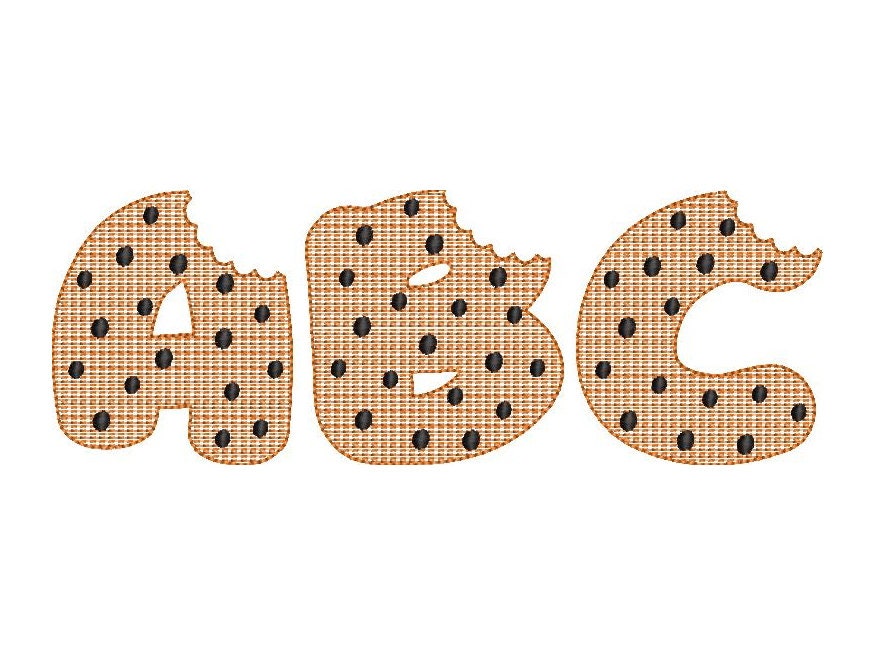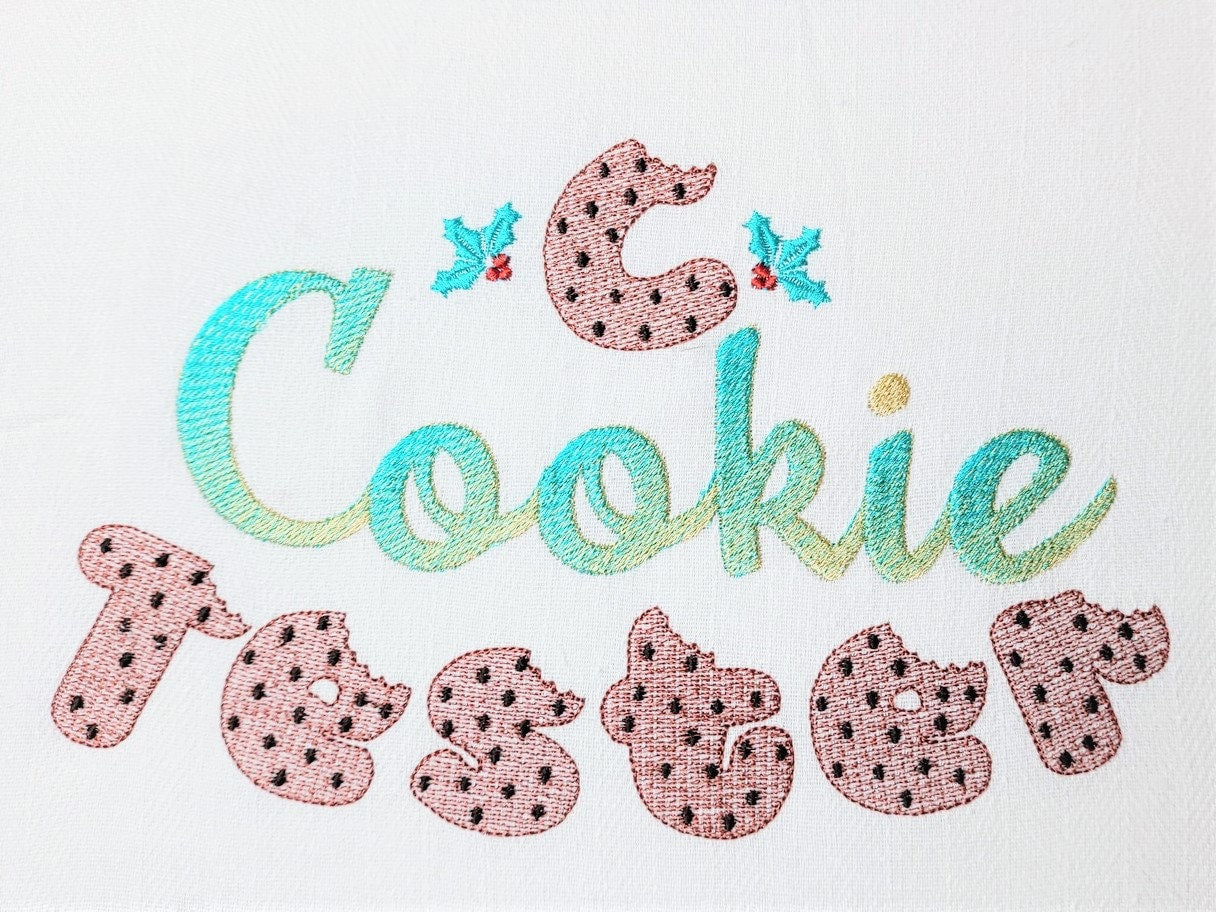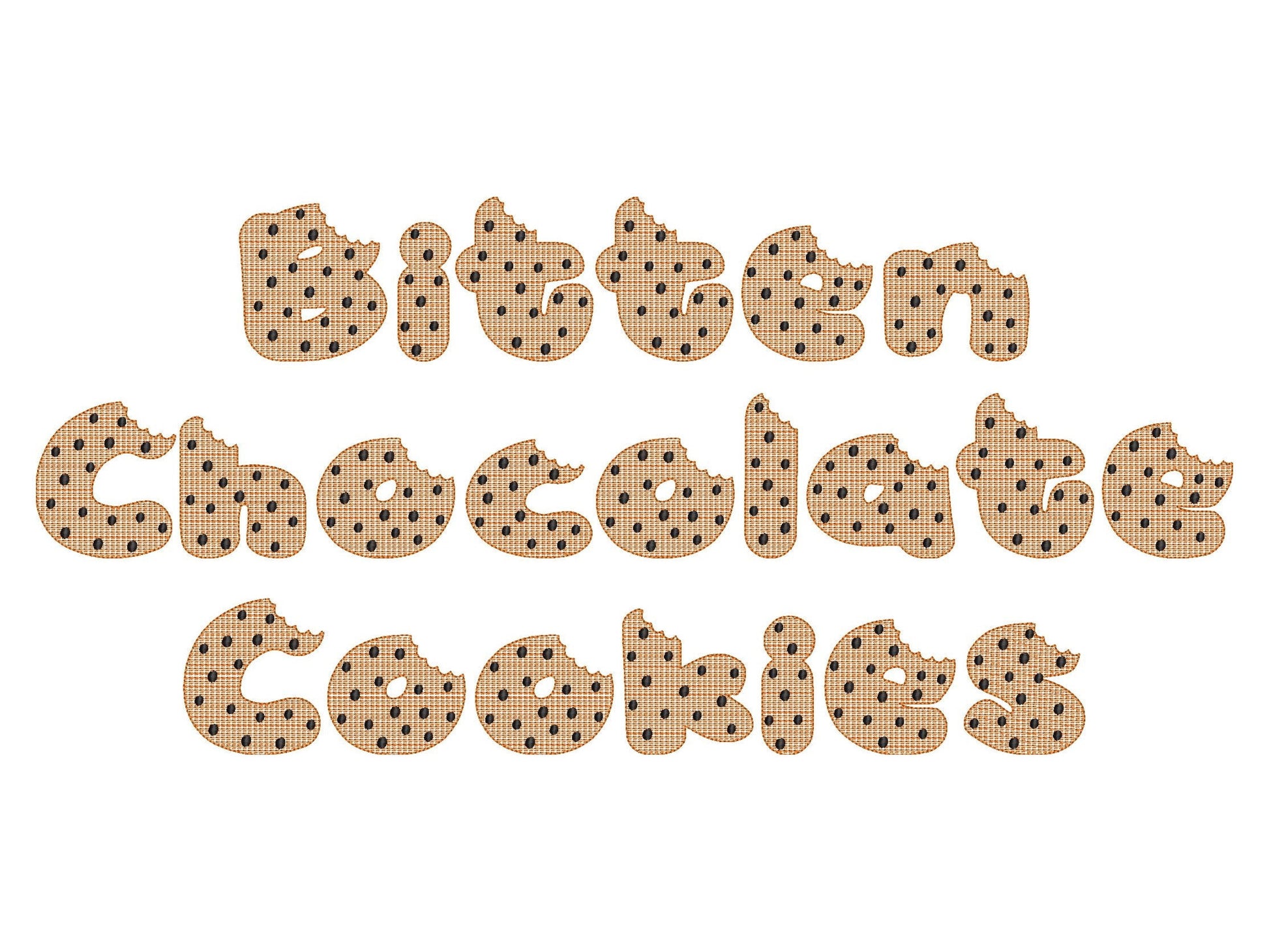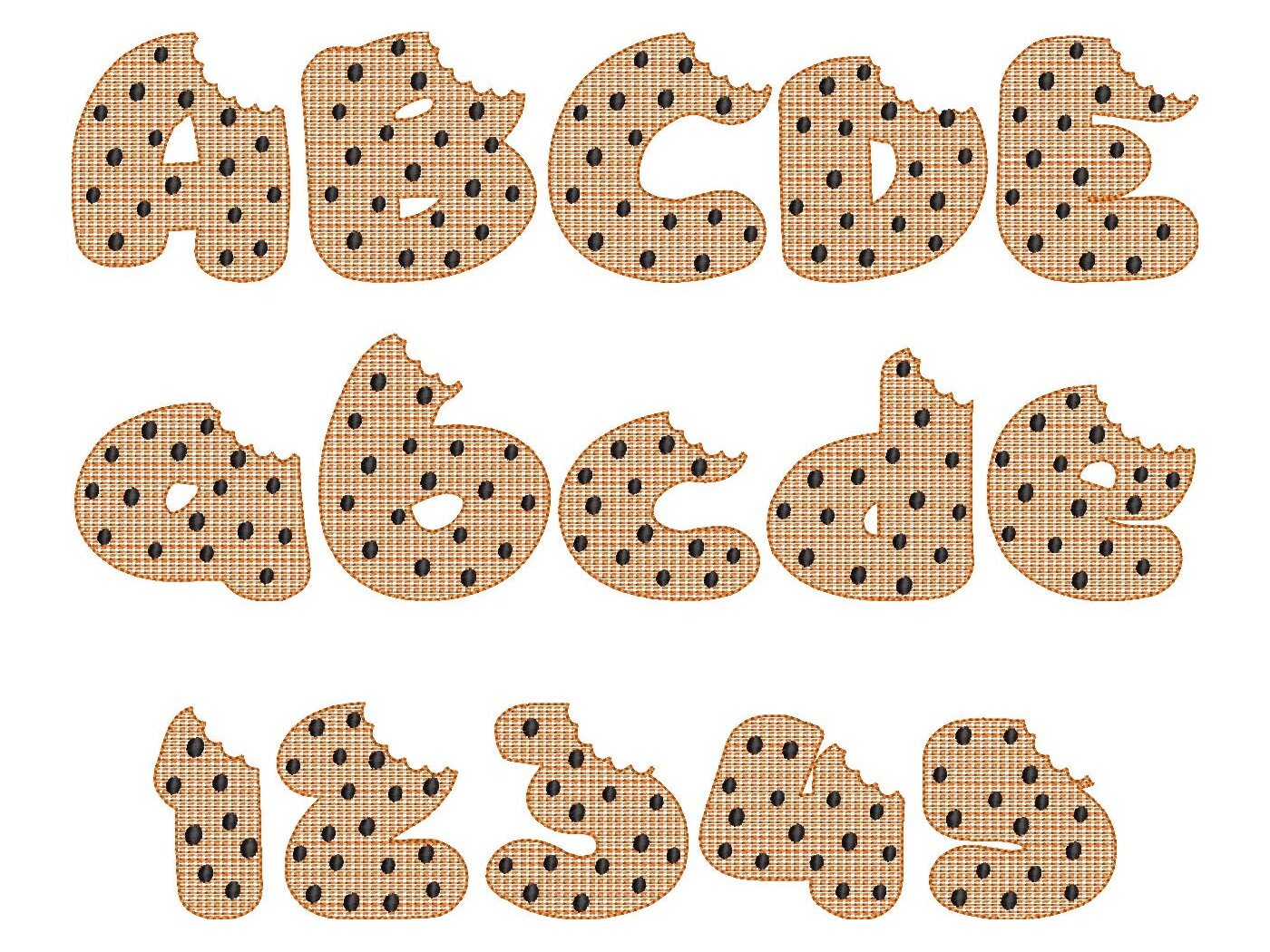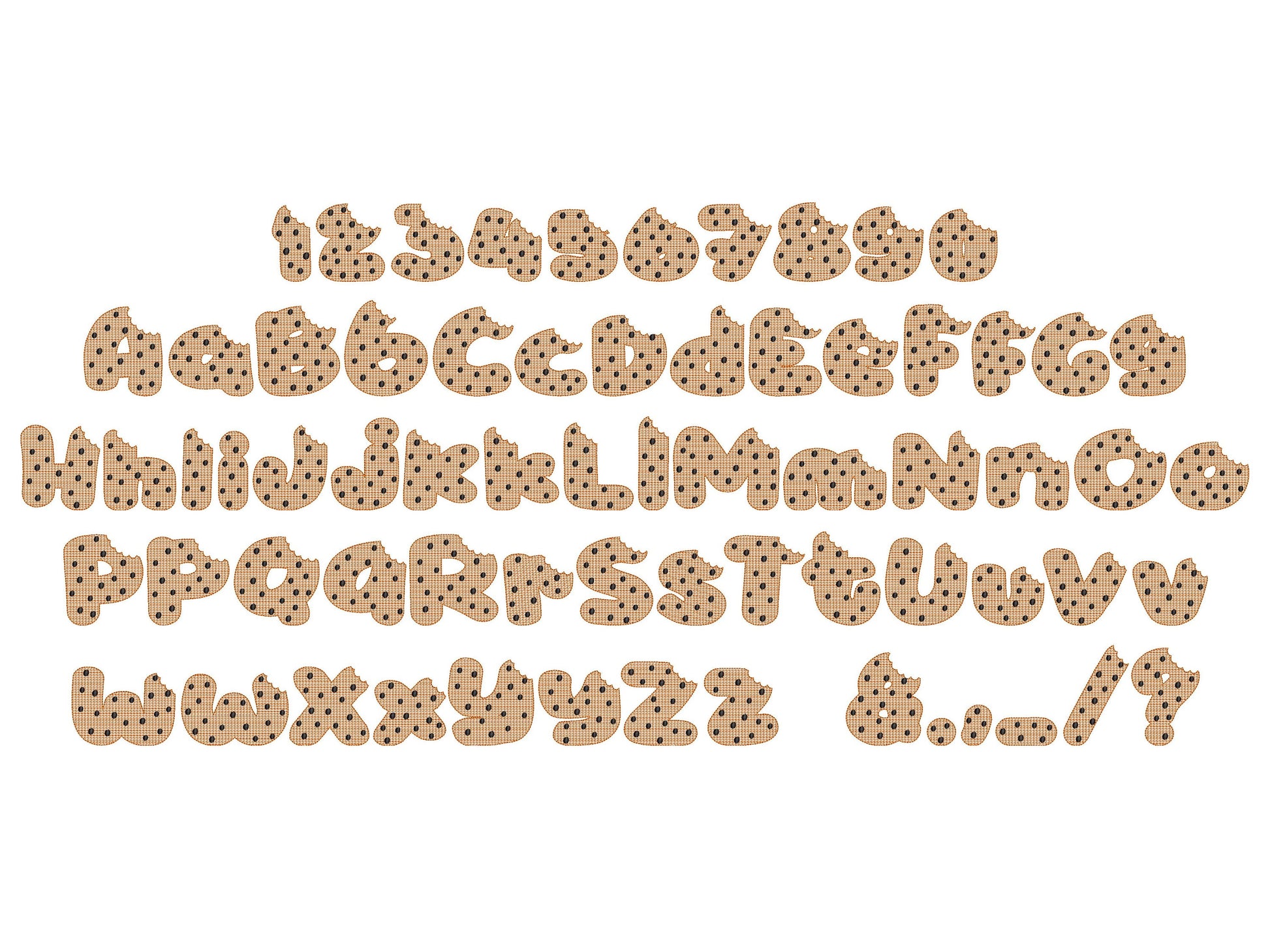
The stitch lines are to far apart and the stitches aren’t smooth. The stitching on the teeth marks aren’t visible, it’s just smooth no actual separate indentations
Or click to open the linkA bitten cookie font with chocolate chips, in light stitch. A sweet kids' alphabet for names on shirts, aprons and bakery gifts.
Each letter looks like a cookie with a bite taken out. Uppercase and lowercase letters, numbers and punctuation in five sizes: 1.5, 2, 2.5, 3.5 and 4 inches.
The stitch lines are to far apart and the stitches aren’t smooth. The stitching on the teeth marks aren’t visible, it’s just smooth no actual separate indentations
Great font turned out so cute on a cookie monster sweater
Schöne ABC datei, leider kein voll stickerei, es ist nur halbvoll gestickt.
Ok, I am really not sure what this font is for considering the letters are close to transparent. They don’t fill in, just some basic “mesh” like texture that is useless on any colored surface. Cute patterns, but not really functional.
Love the design